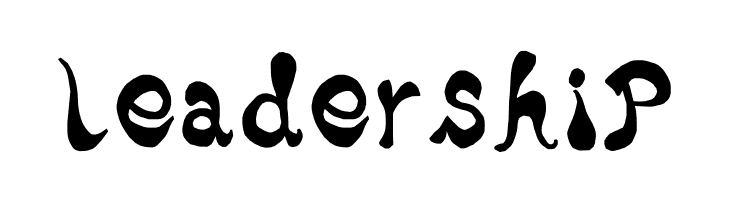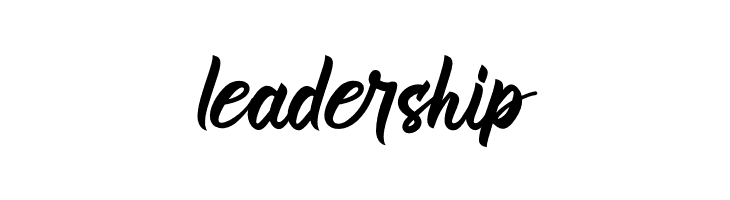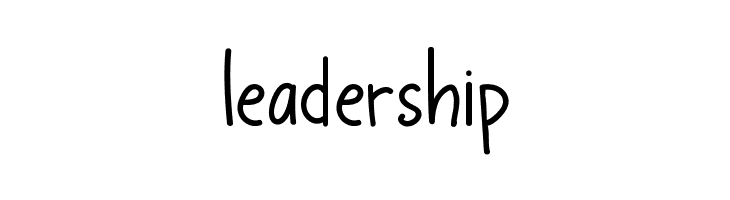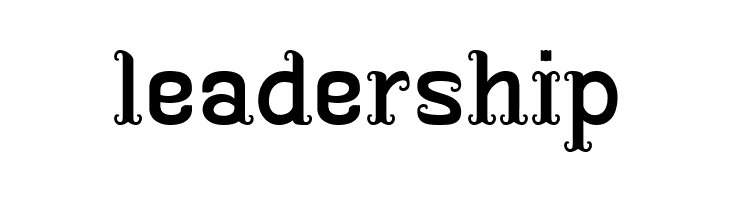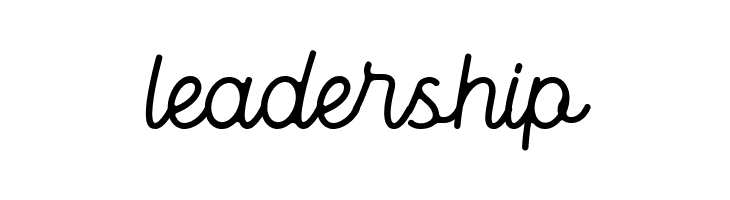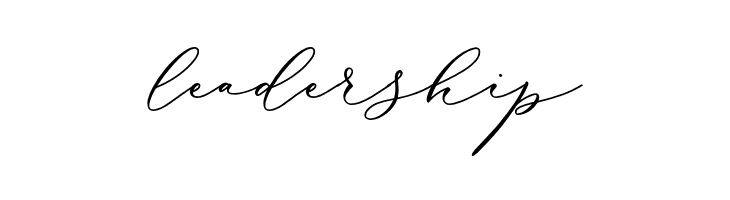
A graceful script font with flowing, interconnected characters and elegant flourishes.
A bold, playful script font with high contrast and whimsical flair.
A playful, elegant script font with medium contrast and whimsical flourishes.
A sophisticated, elegant cursive script with high contrast and flowing lines.
A graceful, cursive font with elegant, flowing strokes.
An elegant, flowing script font with smooth, cursive letterforms.
A bold, expressive script font with a handwritten, cursive style.
A bold, fluid script font with a dynamic, handwritten style.
A playful, handwritten font with bold, dynamic characters.
A playful and casual handwritten font with fluid strokes.
A bold, high-contrast font with dramatic angles and curves.
A playful, whimsical font with decorative curls and a handwritten feel.
A decorative and whimsical font with elegant flourishes and loops.
A playful, zigzag-patterned font with a hand-drawn, whimsical style.
An elegant script font with fluid, cursive strokes and intricate loops.
A flowing, cursive font with elegant, elongated strokes and a sophisticated yet approachable style.
An elegant script font with ornate swirls and decorative flourishes.
A modern, elegant script font with a flowing, cursive style.
A modern, elegant script font with fluid, connected letterforms.
A whimsical and elegant script font with decorative swirls and loops.
Hand-drawn doodle icon set with a casual, whimsical style.
A playful and elegant handwritten script font with fluid, connected letters.
A delicate and elegant script font with flowing, interconnected letters.
A bold, robust slab serif font with strong, heavy strokes.
A bold, impactful font with strong strokes and a classic-modern style.
( Copyright 2016 The Bevan Project Authors (www.sansoxygen.com) )
A bold, impactful font with thick strokes and strong presence.
A geometric, beveled font with a three-dimensional, outlined design.
A bold, geometric font with a 3D beveled design and strong industrial feel.
A bold, hand-drawn font with a playful and energetic style.
An elegant and expressive script font with bold, calligraphic strokes.